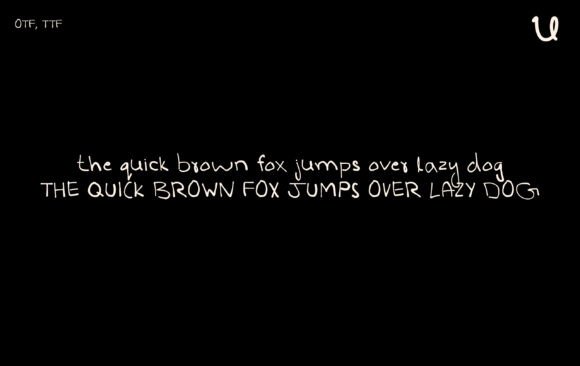
Introduction to Skechura Font Font
Fonts play a crucial role in design, and the Skechura Font font is a typeface that brings both character and versatility to any project. Whether you’re working on a branding project, a website, or a print design, the Skechura Font font offers a unique style that can elevate your work.
| 📌 Font Name | Skechura Font |
| 👤 Author | Uzairr |
Introducing Skechura, an intricately crafted digital font envisioned and brought to life by esteemed designer Uzairr.
Every detail is sharply captured, evoking a potent sense of crisp modernity and subtle sophistication Perfect for those looking to leave a memorable mark, Skechura blends creativity and clarity effortlessly.
Key Features of Skechura Font Font
Why Choose Skechura Font Font?
The Skechura Font font is more than just a typeface – it’s a design tool that helps you communicate your message with style and clarity. Its unique character set and versatile design make it suitable for a wide range of applications, from elegant invitations to bold headlines.
With its carefully crafted letterforms and balanced proportions, the Skechura Font font ensures readability and visual appeal across all mediums.
What makes Skechura Font font special?
The Skechura Font font stands out with its unique design, exceptional readability, and versatility across various design applications.